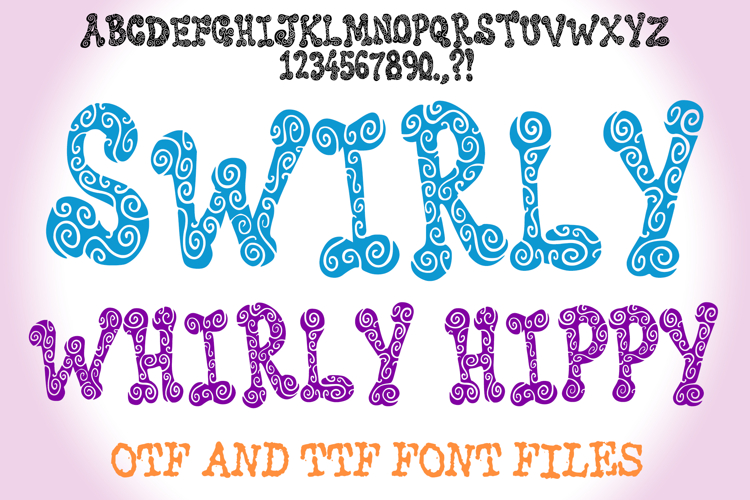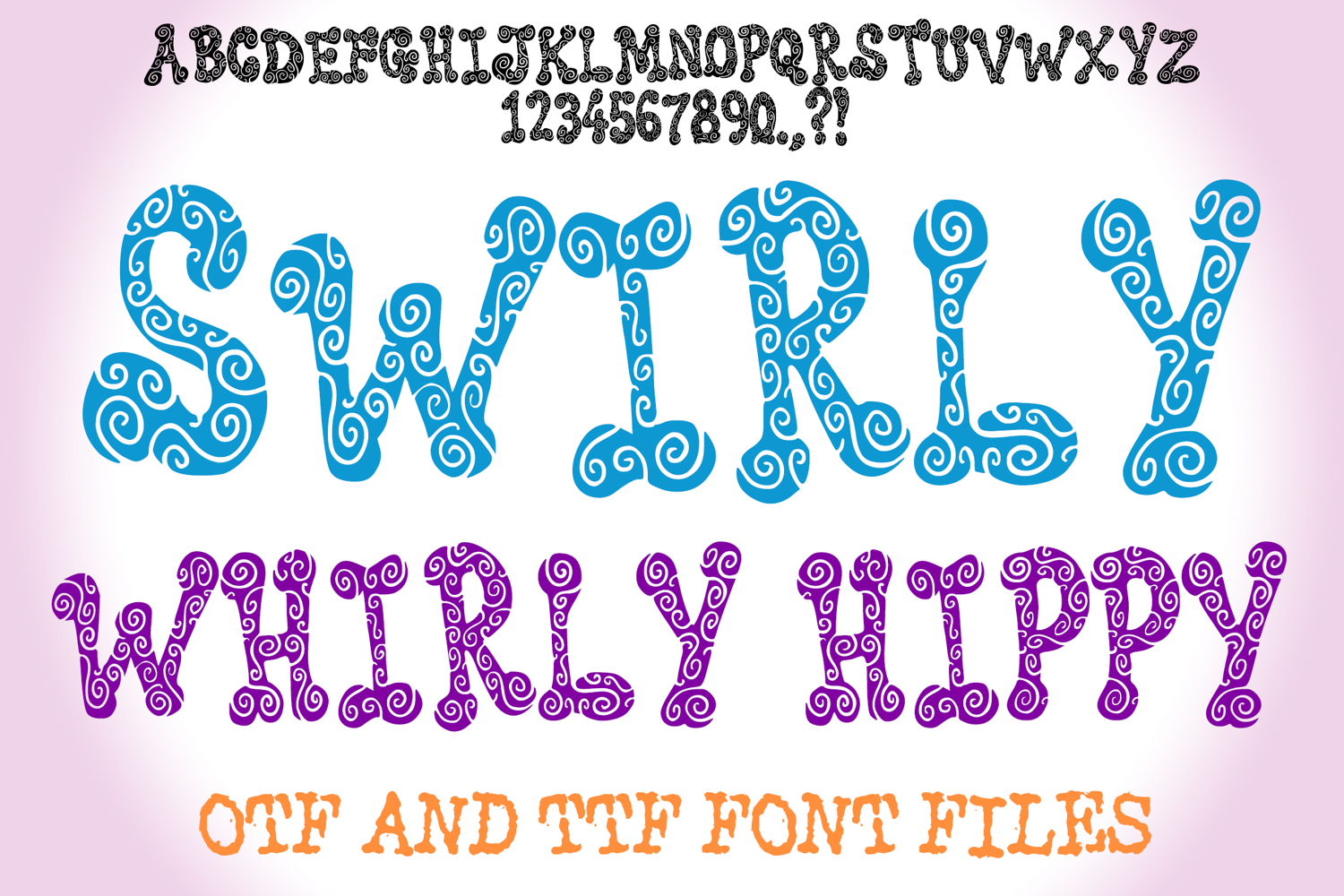
Swirly Whirly Hippy Lettering ABC Font Typeface Alphabet OTF
Take a trip back to the groovy era with Swirly Whirly Hippy Font! This wonderfully whimsical typeface is drenched in the free-spirited essence of the 60s and 70s, featuring soft, bubbly letterforms filled with captivating, fluid swirls. It's more than just a font; it's a nostalgic journey, designed to infuse your creative projects with peace, love, and undeniable retro charm.
Each character in Swirly Whirly Hippy Font embodies a playful, organic shape whose interior dances with intricate, coiling patterns. This vibrant detail creates a rich texture that evokes the psychedelic art and bohemian aesthetics of a bygone era, making your text feel expressive, warm, and full of character. Ideal for crafting retro-inspired branding, concert posters, festival graphics, vintage apparel, children's book titles, and engaging social media posts, this font ensures your message spreads good vibes and stands out with unique flair.
Whether you're aiming for a classic hippie aesthetic, a groovy 70s look, a whimsical fantasy vibe, or simply a uniquely decorative flair, this font delivers with unparalleled style. Its soft, rounded forms maintain readability, while the intricate swirls add an artistic depth that perfectly captures the spirit of freedom and imagination.
If you're looking to infuse your designs with nostalgia, charm, and an undeniable artistic groove, Swirly Whirly Hippy Font is your ultimate tool. Spread the love and let your creativity swirl!